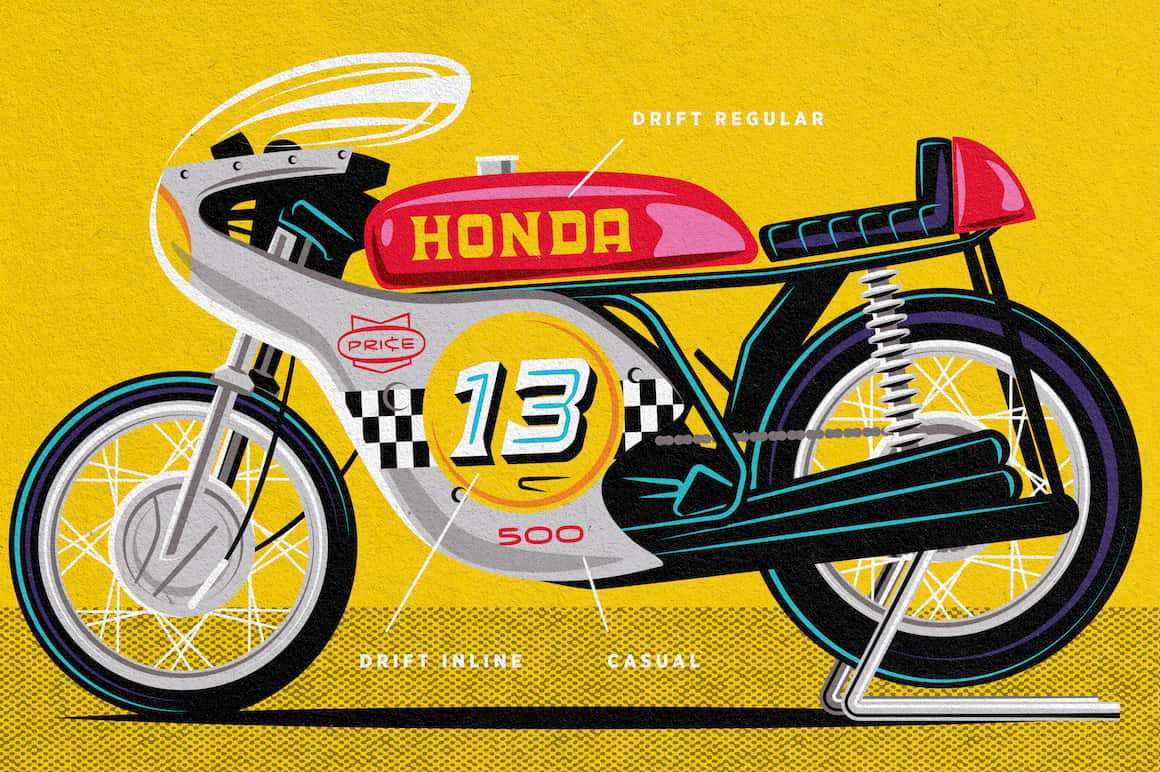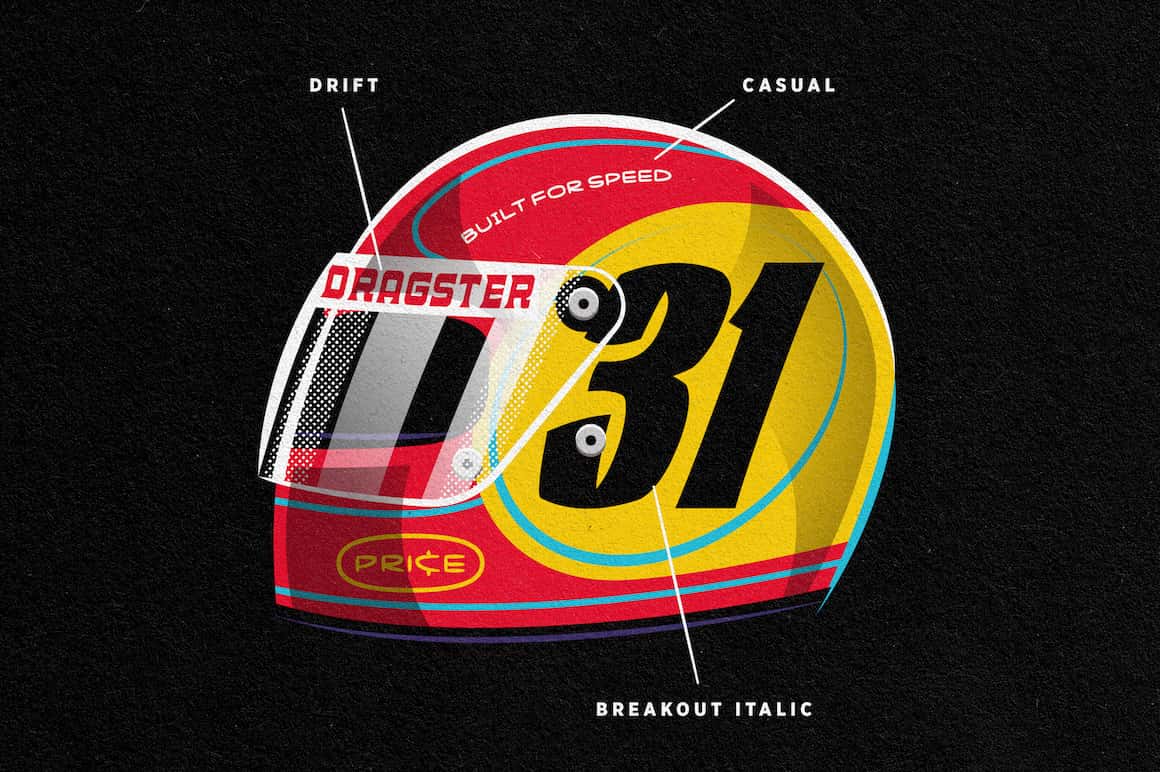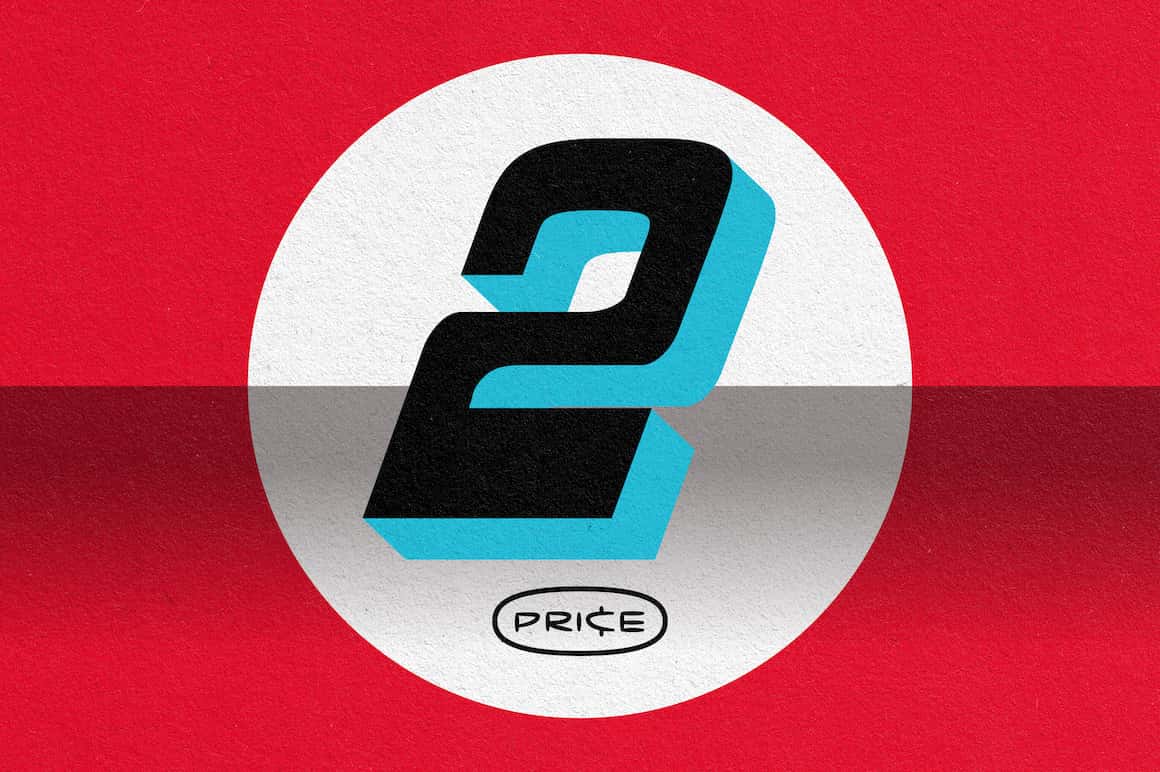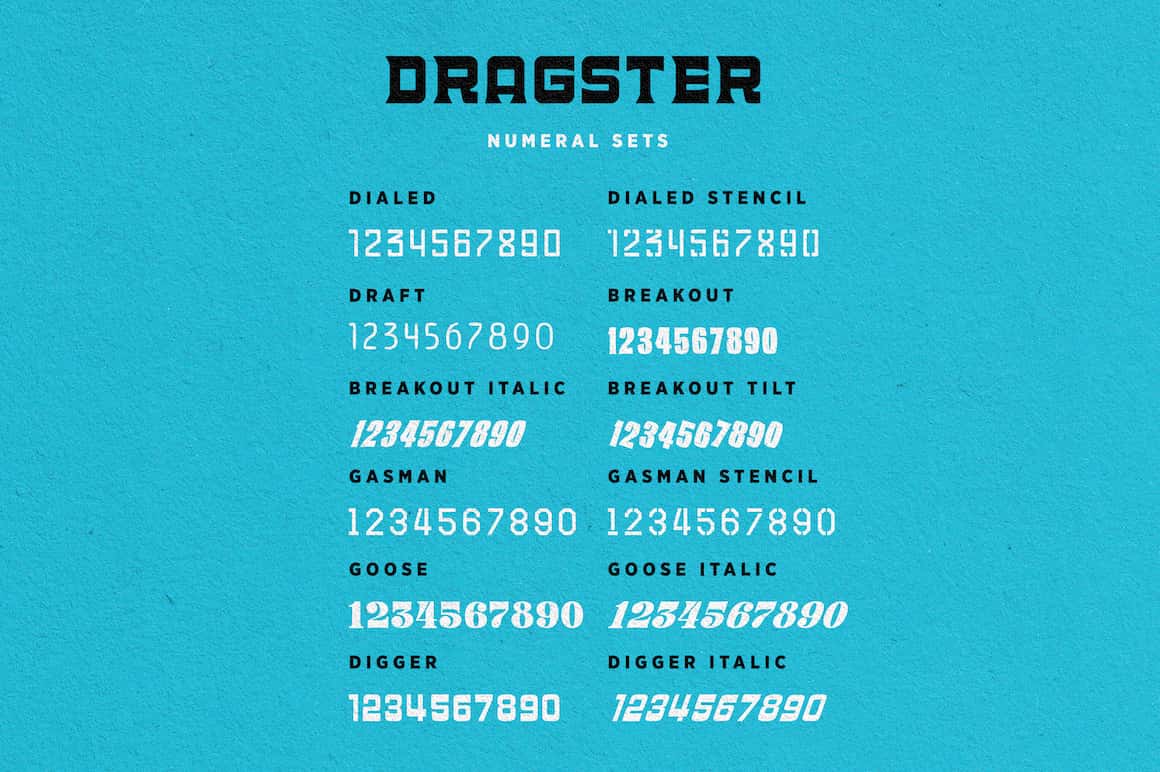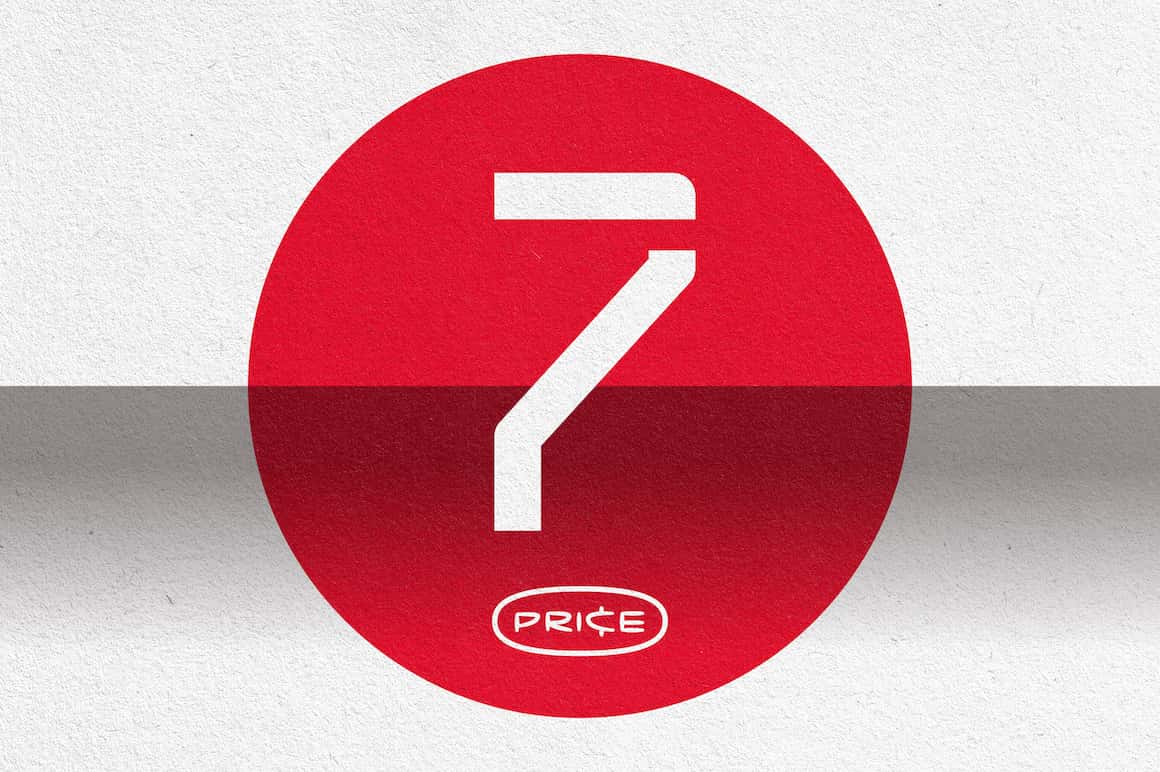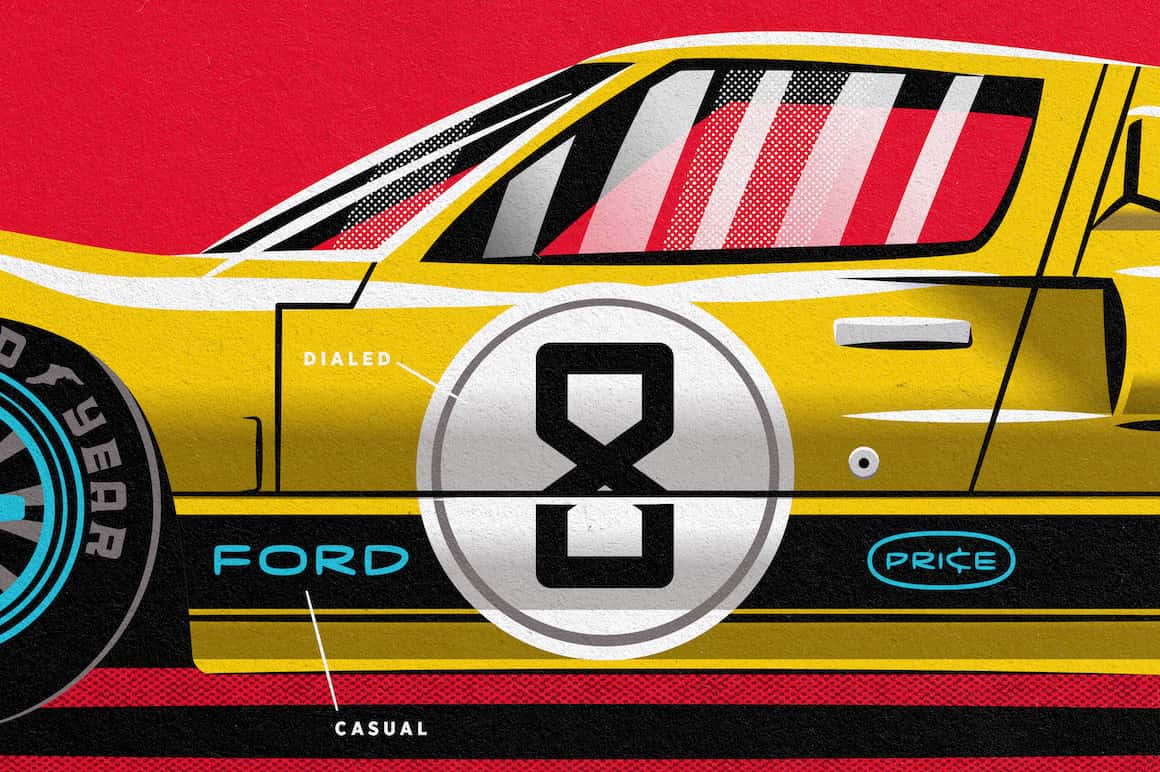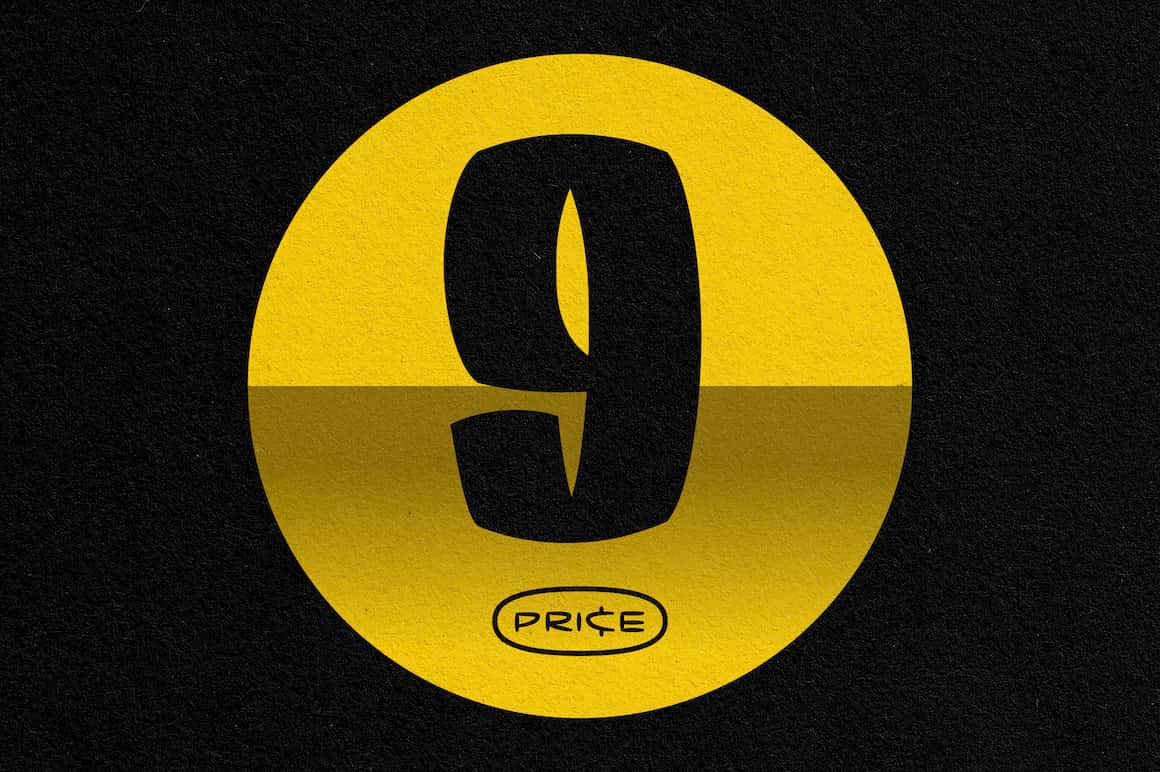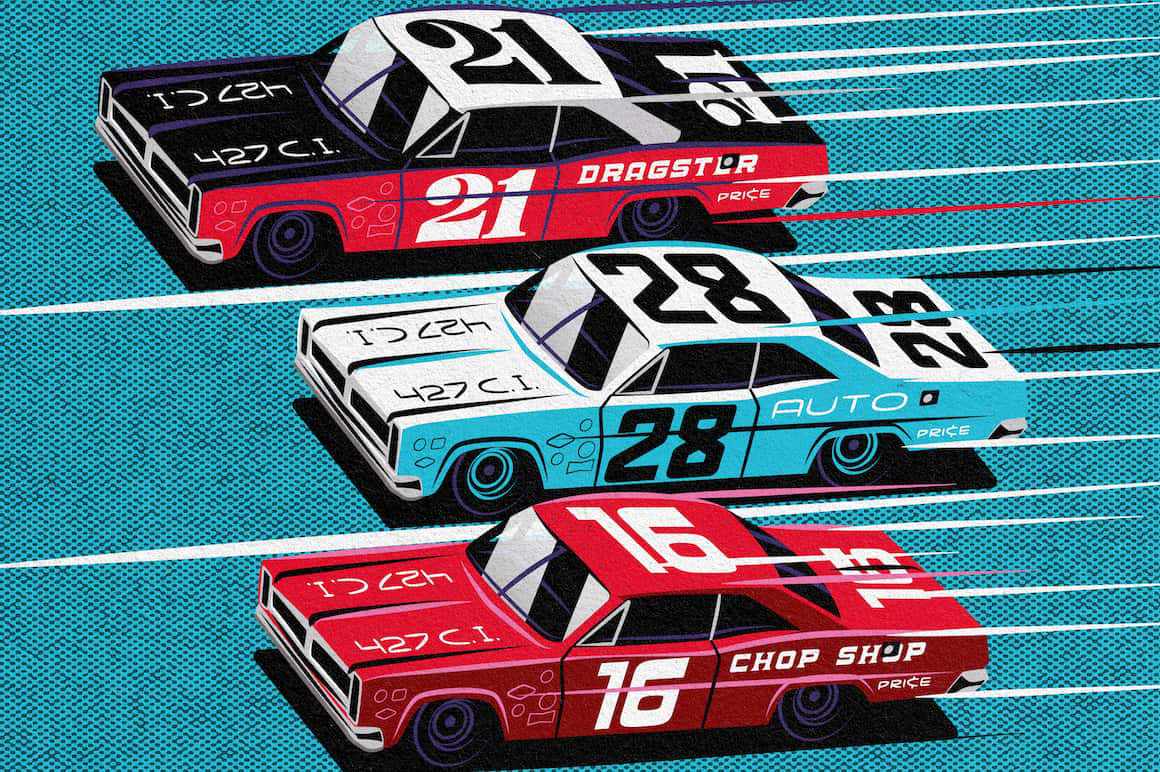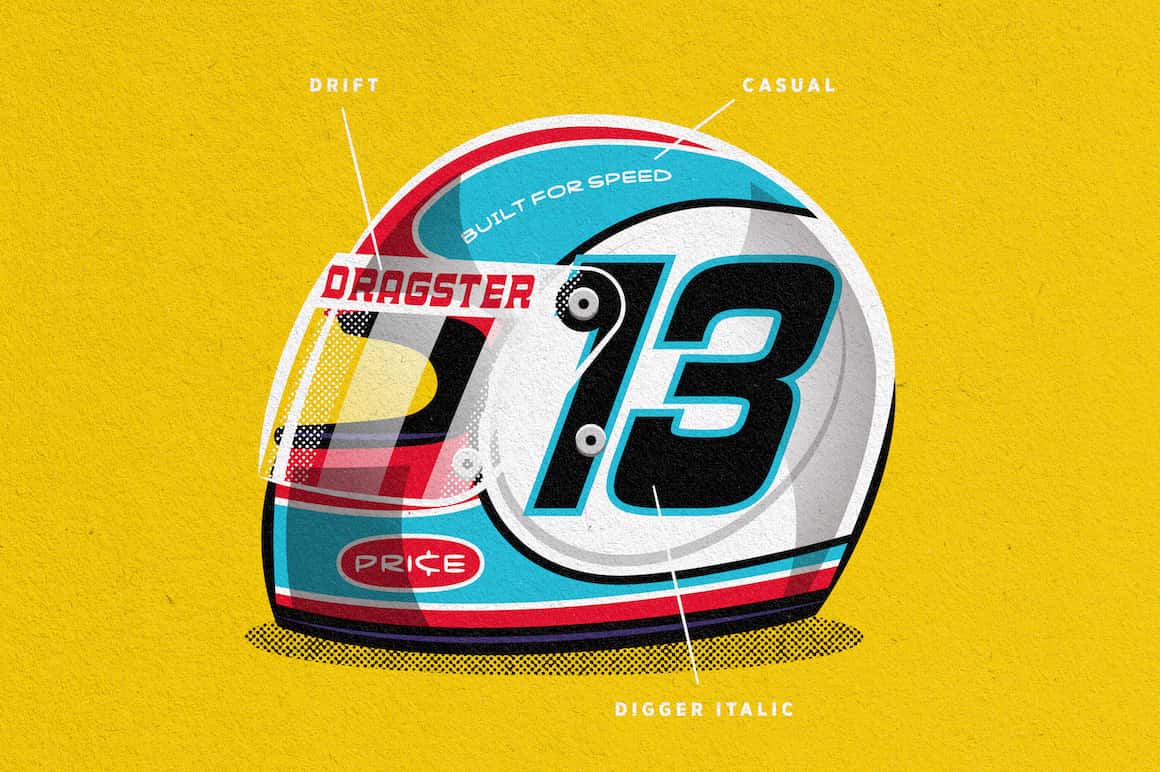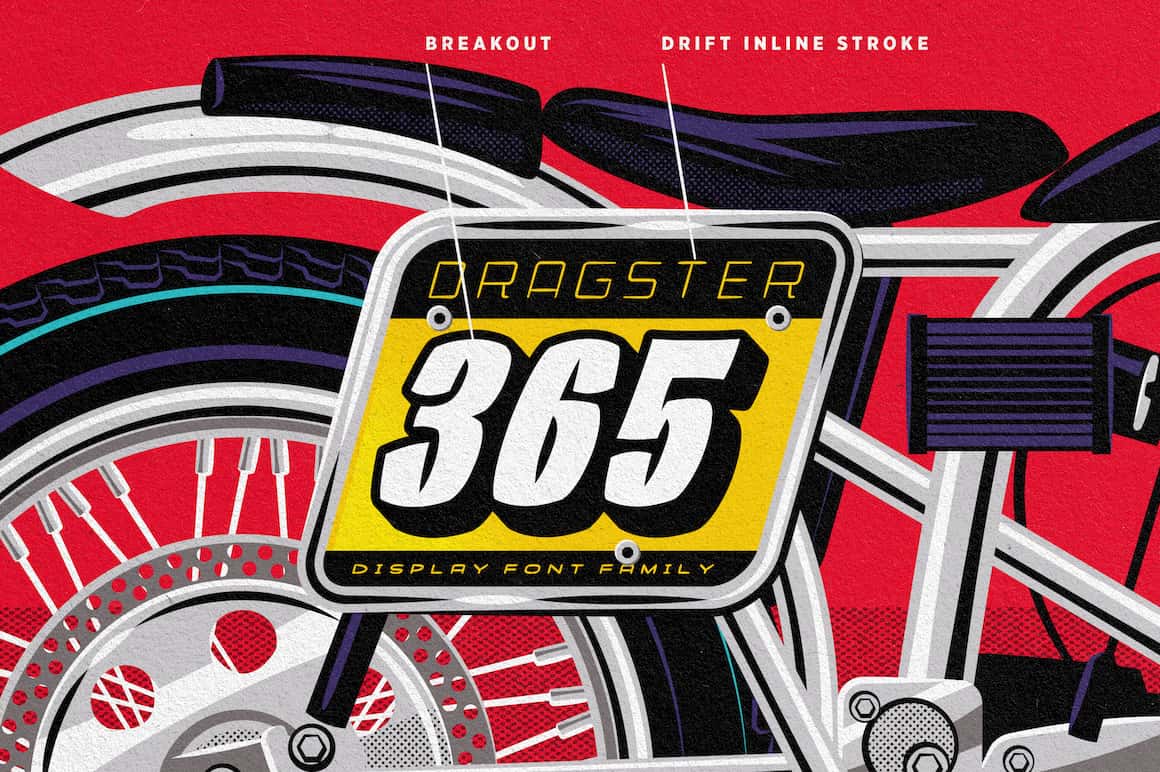
Dragster Display Fonts
DRAGSTER is a collection of 8 display fonts inspired by vintage racing fonts used for race logos, car numbers, racing numbers, helmets, and signage.
Perfect for typesetting your race plate, helmet, doors, bonnet….or pimping your mum's car!!!
Here's why you'll love DRAGSTER:
• Includes 8 retro racing fonts (2 alphabets and 6 numeral fonts).
• Inspired by classic old-school race car lettering.
• Includes a variety of styles and even stencil and italic variations for a total of 17 fonts.
• Fonts are designed to look great together.
• Perfect for headlines, logos, and race cars.